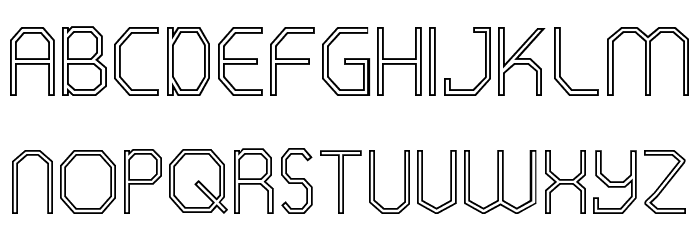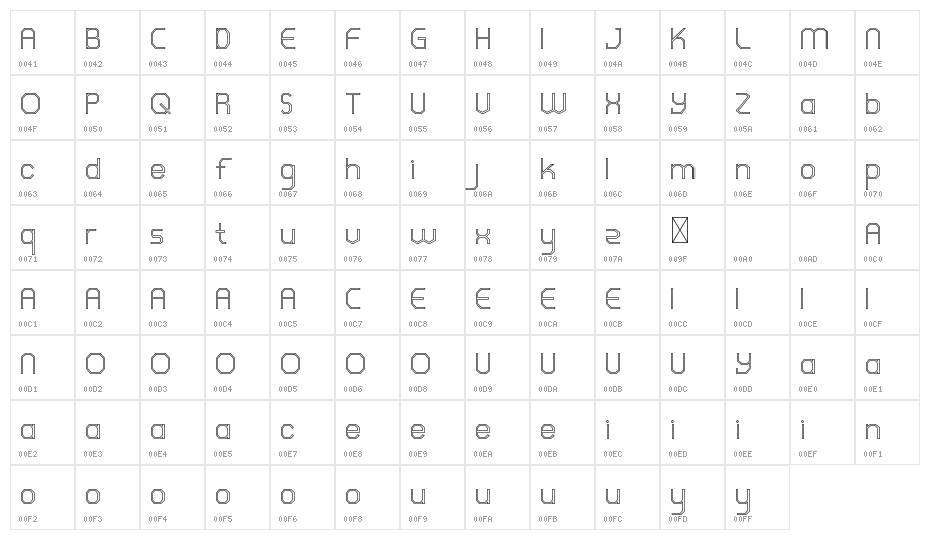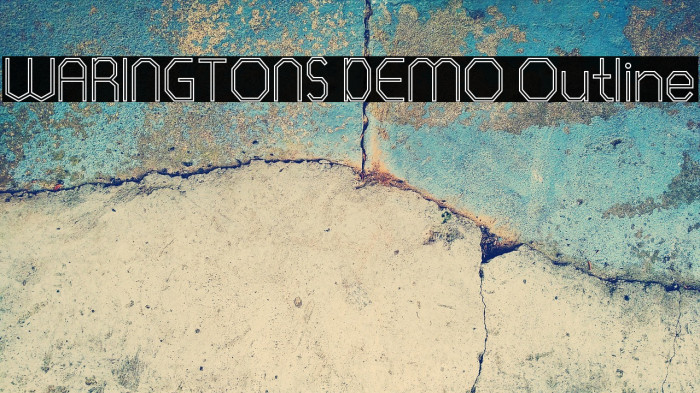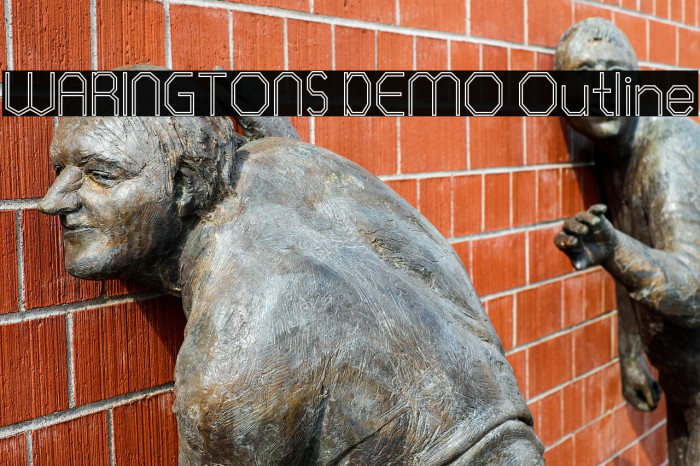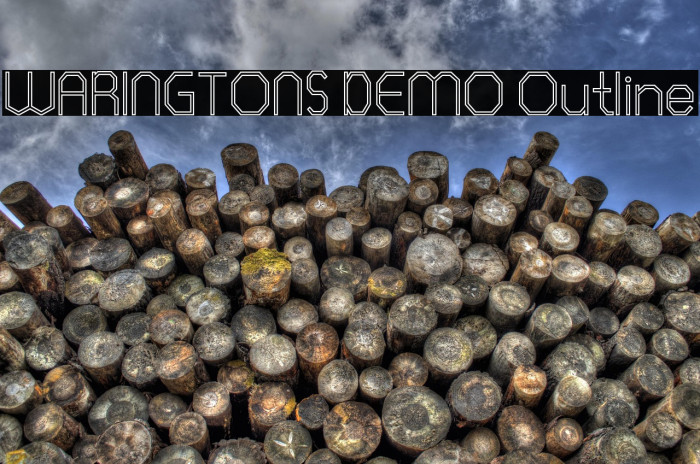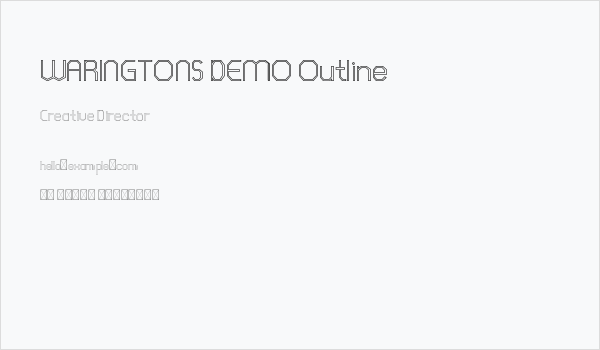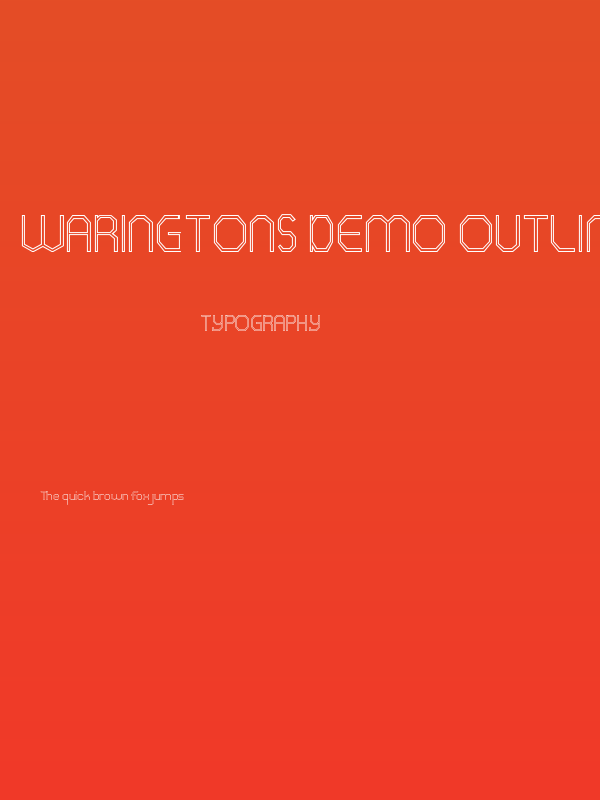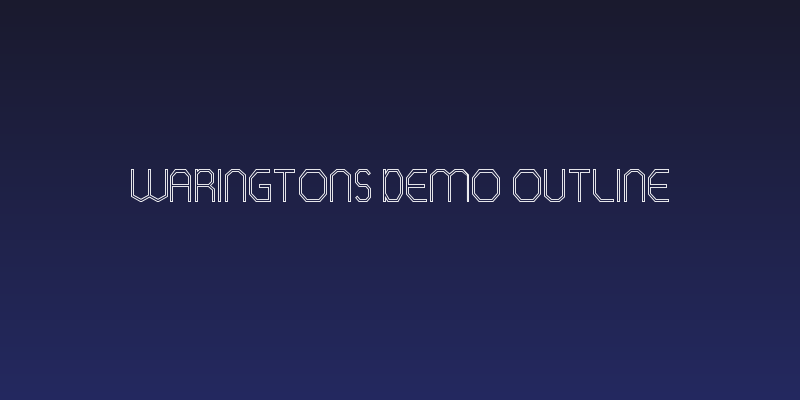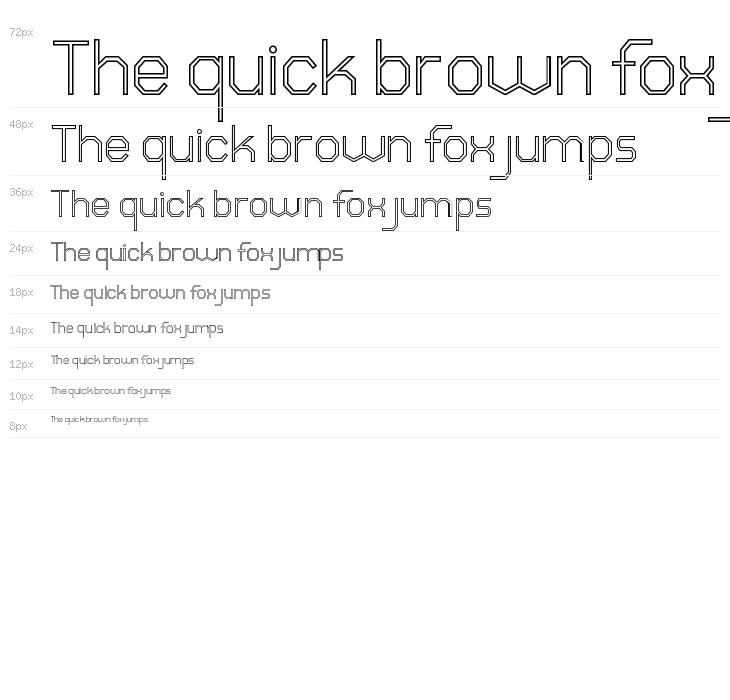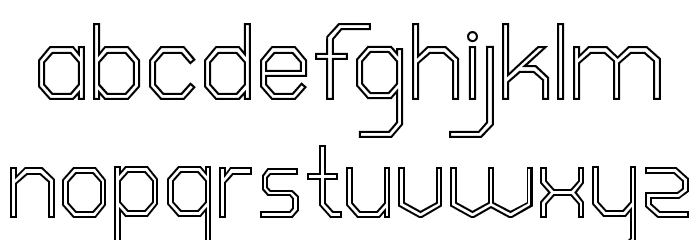
WARINGTONS DEMO Outline Font
WARINGTONS DEMO Outline Description
This font features a geometric, outline style with a modern and futuristic aesthetic. The characters are constructed with clean, angular lines that form a distinct, hollow appearance. The uppercase and lowercase letters maintain a consistent height and width, creating a uniform look. The design is minimalistic yet striking, with a focus on symmetry and precision. The font's unique outline effect gives it a three-dimensional feel, making it ideal for eye-catching designs. The numerals and special characters follow the same geometric pattern, ensuring a cohesive visual experience across all text elements.
| Proposed Projects | Ideal for tech-themed designs, futuristic branding, posters, and digital media. |